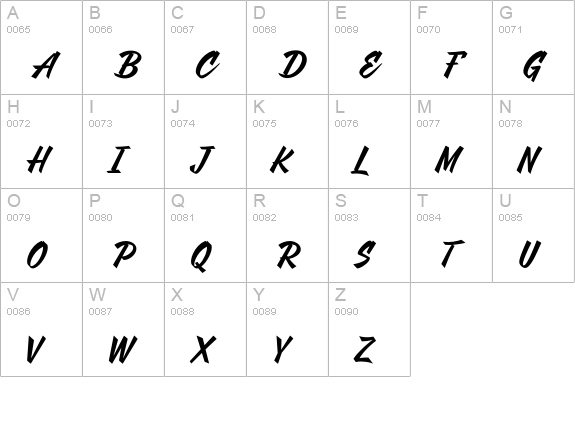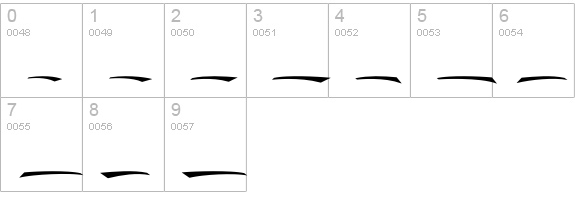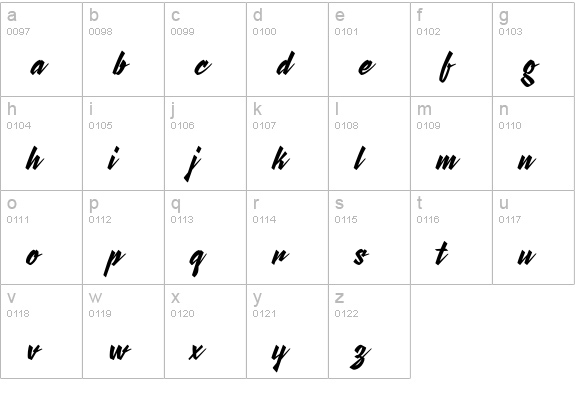
Agneya is a free for personal use font in the Script > Calligraphy category. It has been downloaded 175 times and is available for Windows, Mac and Linux.
Introducing Agneya, a captivating and elegant font that is bound to make a statement in any design project. With its sleek and modern aesthetic, Agneya effortlessly combines sophistication and style, making it the perfect choice for a variety of applications. Designed with meticulous attention to detail, each letter of Agneya exudes a sense of grace and refinement. Its smooth and fluid lines create a harmonious flow that captures the eye and commands attention. Whether used for headlines, logos, or body text, Agneya adds a touch of sophistication to any design. But what sets Agneya apart is not just its stunning beauty, but also its versatility. This font is incredibly adaptable, seamlessly fitting into a wide range of design styles, from contemporary to classic. Its timeless appeal ensures that Agneya will remain relevant and impactful for years to come. And the best part? Agneya is free! That's right, this exquisite font can be downloaded for free at FontsMarket.com. Now, you can elevate your designs without breaking the bank. Whether you're a professional designer or a creative enthusiast, Agneya is the perfect addition to your font collection. So why wait? Experience the beauty and versatility of Agneya for yourself. Download it for free at FontsMarket.com and unlock a world of design possibilities. With Agneya, your projects will exude elegance and sophistication, leaving a lasting impression on anyone who sees them.